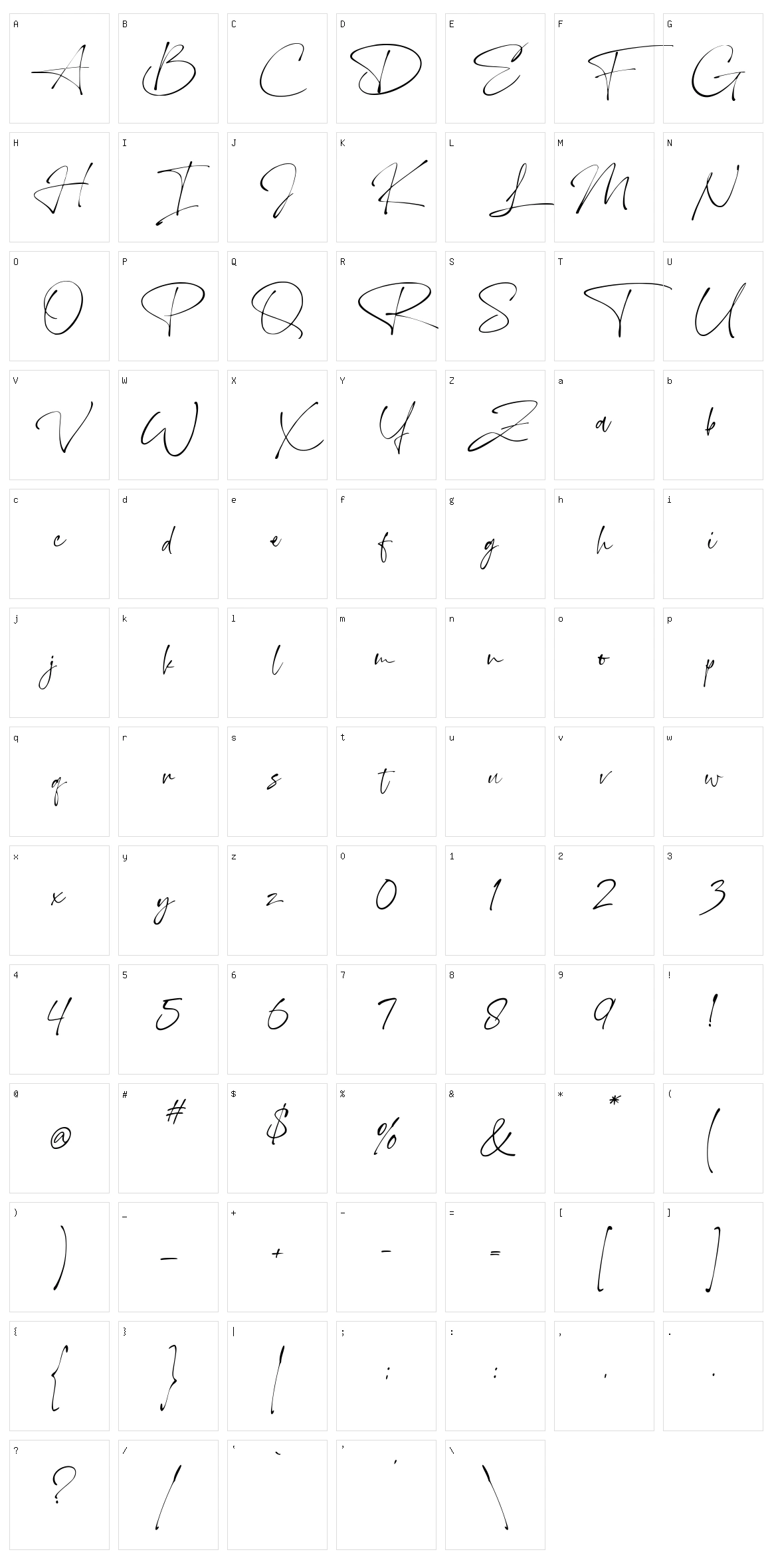
The free font Dreaming in the Moonlight is carefully designed by Cat.B, showcasing a thoughtful balance of creativity and usability and falls under the Script font style. When you download the ZIP file, it contains only 32.77 KB of font files, making it lightweight and quick to download. Please review the license details below to understand permitted usage and distribution rights. If license information is not available, we recommend using this font for personal projects only or contacting the author directly for commercial usage permissions.